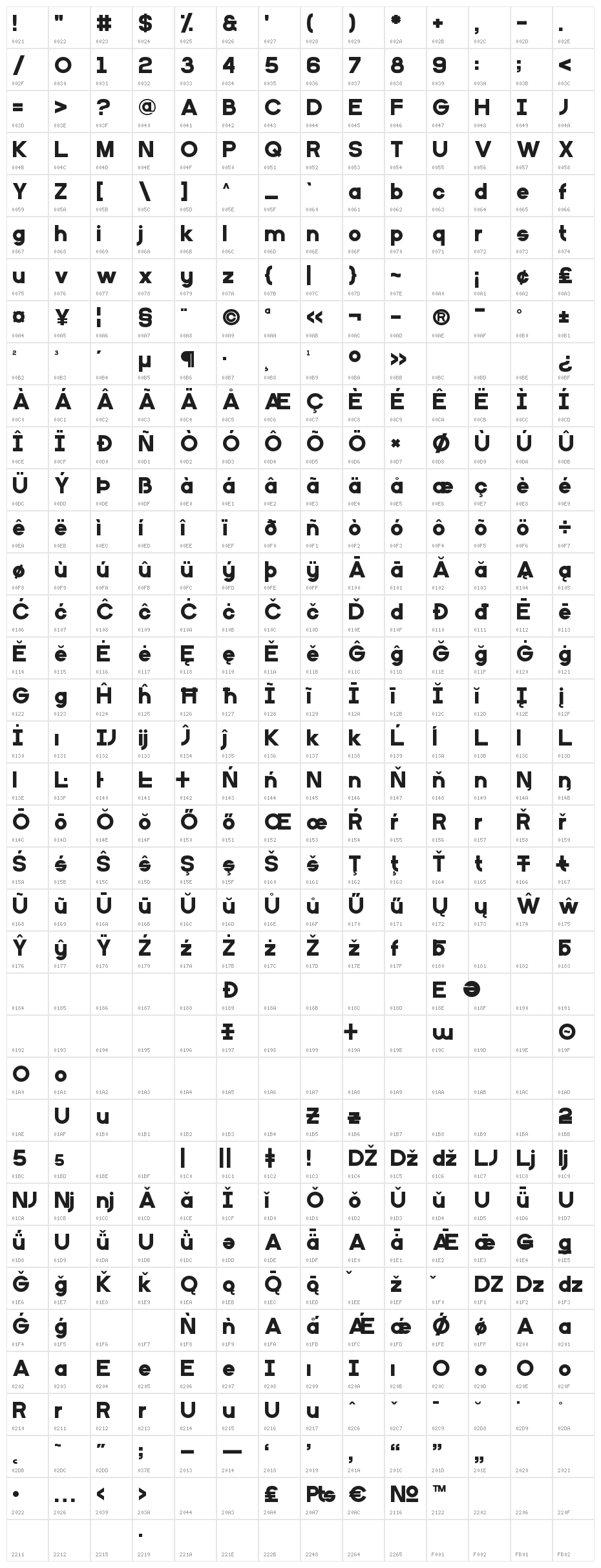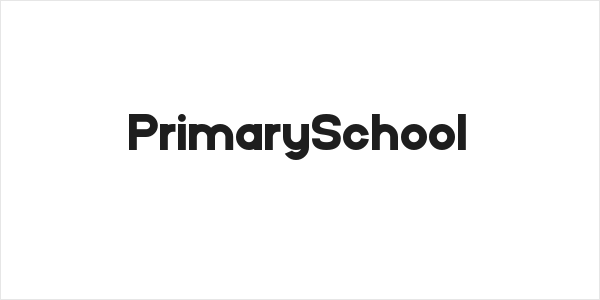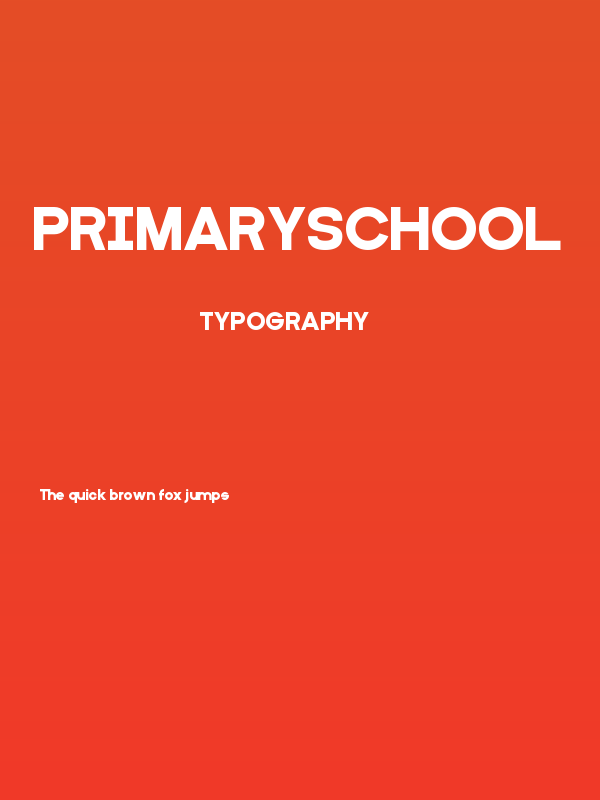
PrimarySchool Font
PrimarySchool Description
This font features a bold and modern sans-serif style with clean, geometric shapes. The uppercase and lowercase letters are well-balanced, with consistent stroke widths that give a strong and confident appearance. The numerals are clear and easily distinguishable, making them suitable for various applications. The special characters are designed to complement the overall aesthetic, maintaining the bold and straightforward look. The font's simplicity and clarity make it highly legible, even at smaller sizes, while its boldness ensures it stands out in larger formats.